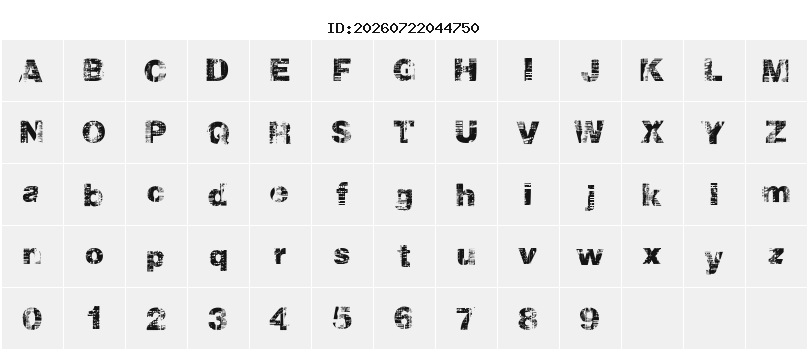
hollavetica Preview
• Font Name: hollavetica
• Designer: max infeld
• Manufacturer: xerographer foundry
• Description: Max Infeld Designed this font at Empire Coffee chico,ca
About hollavetica.ttf
hollavetica.ttf is a modern, elegant sans-serif font designed for ultimate readability and visual harmony. Perfect for branding, headlines, web design, and print materials.